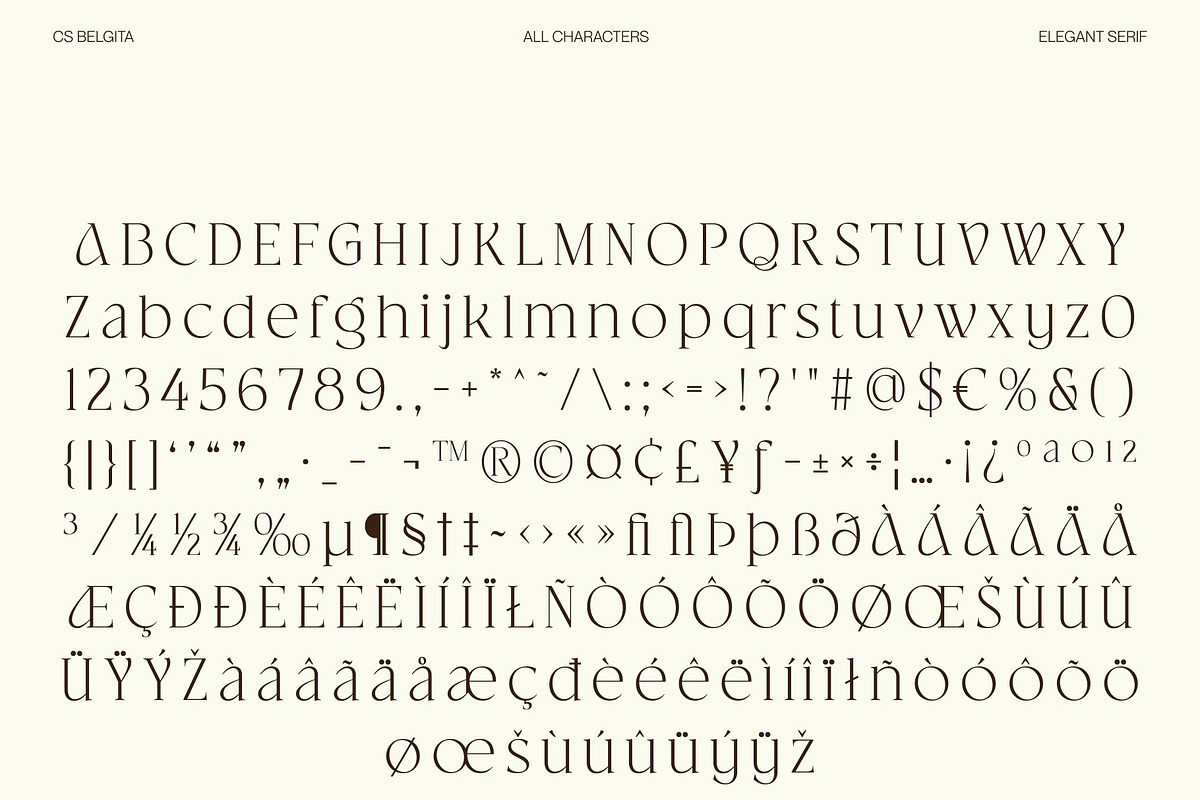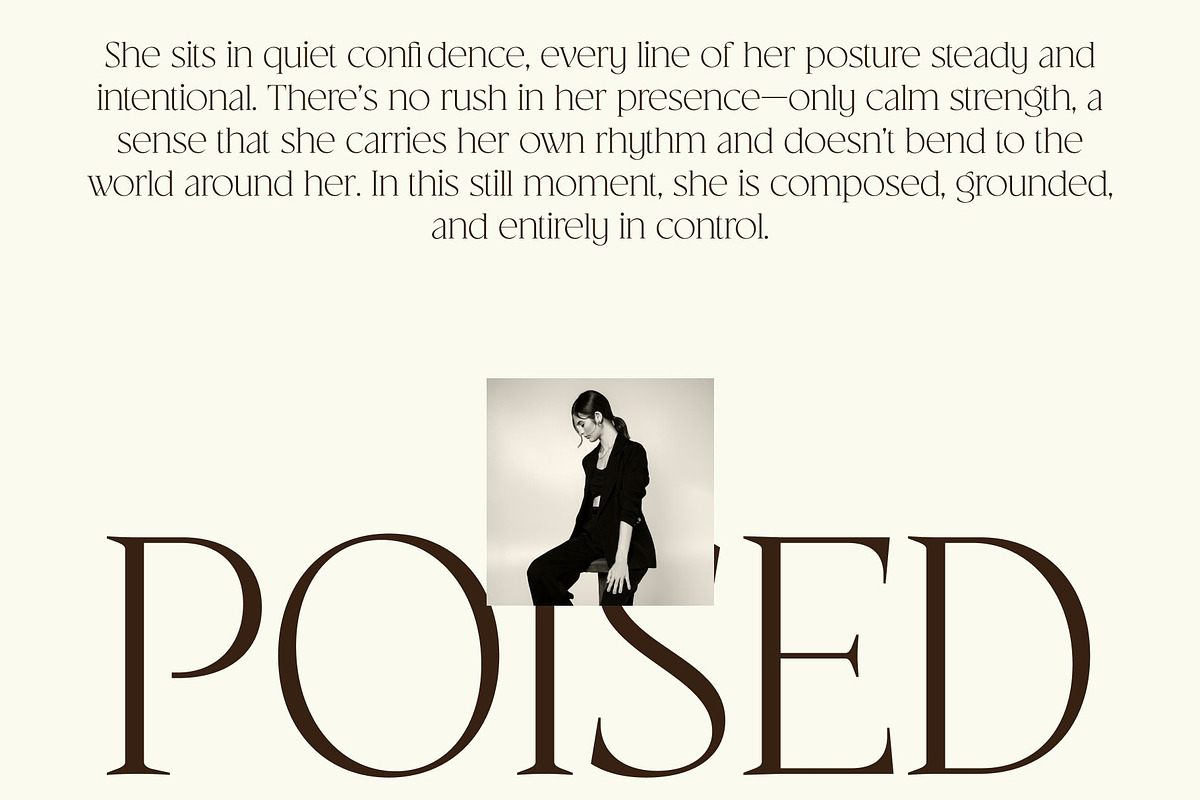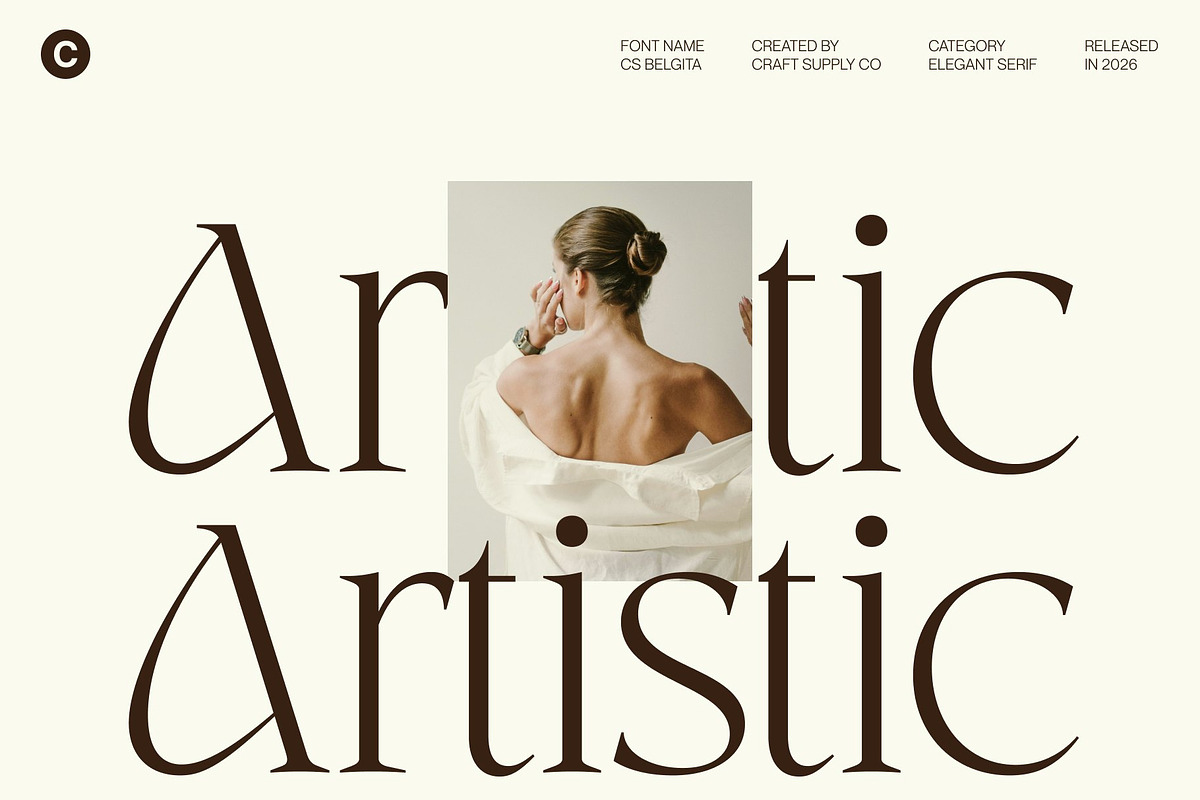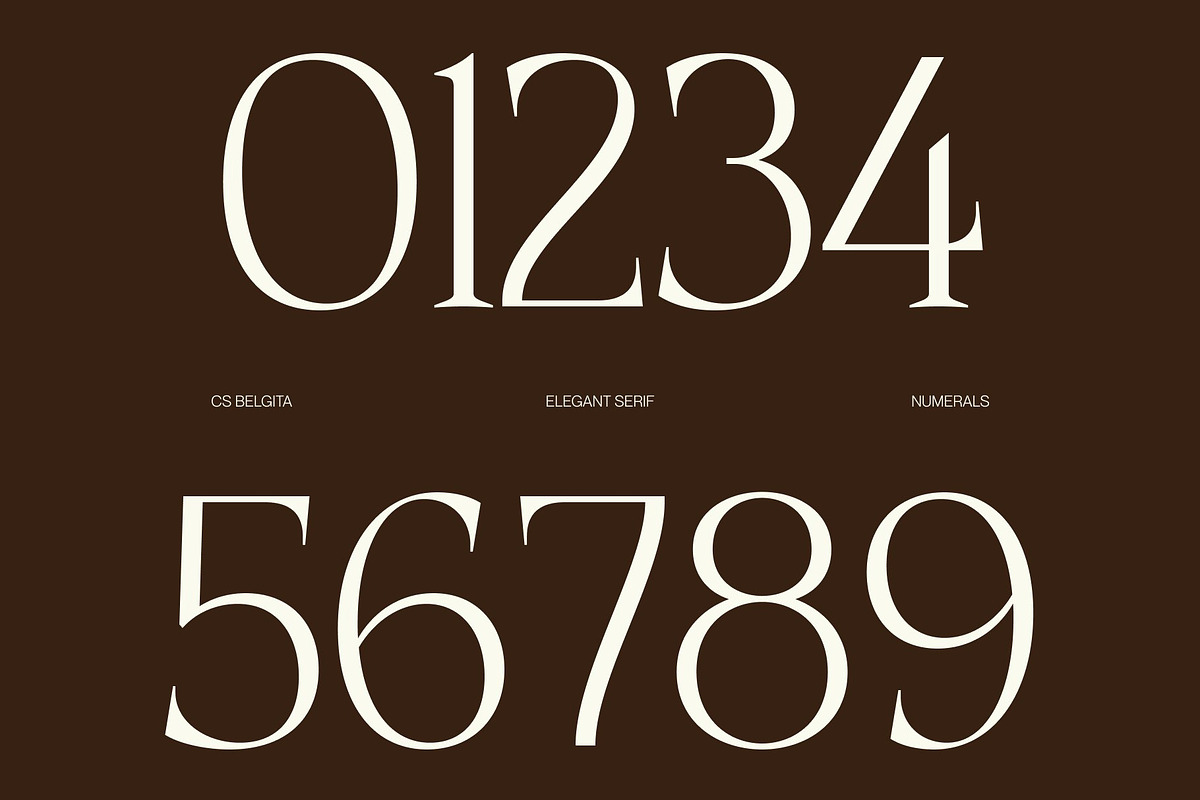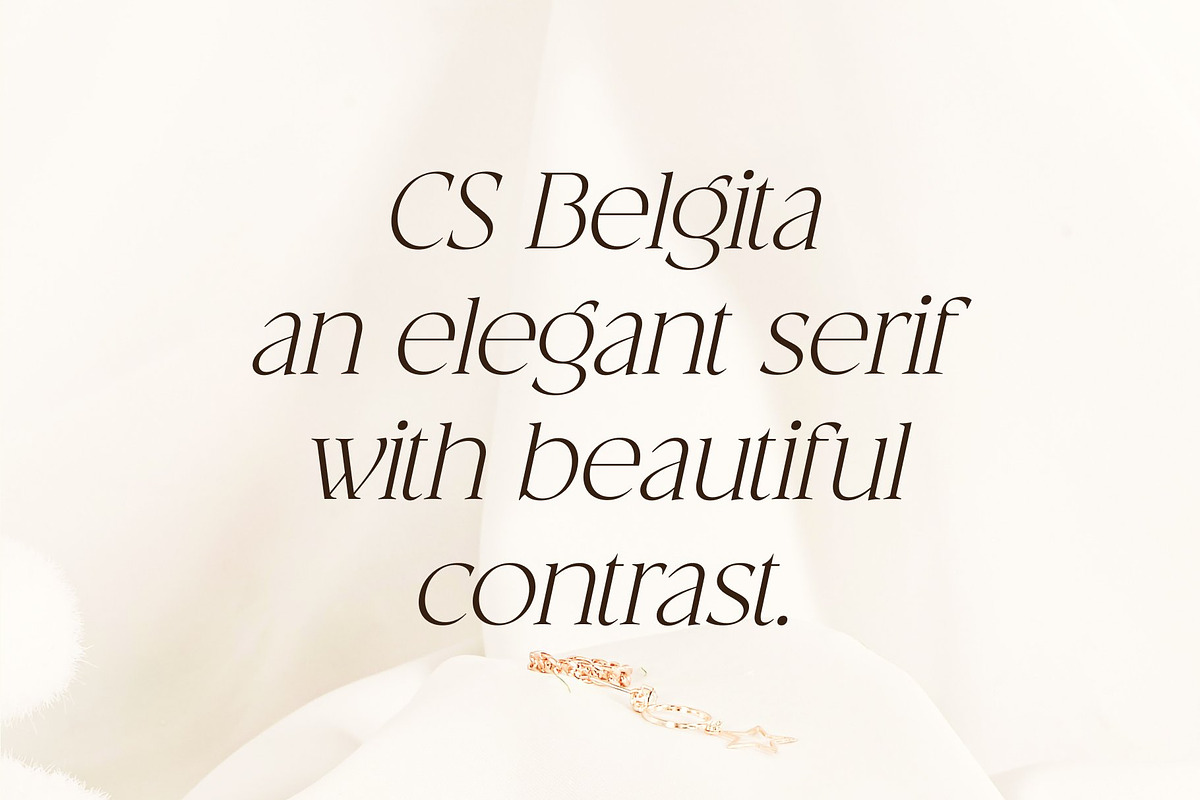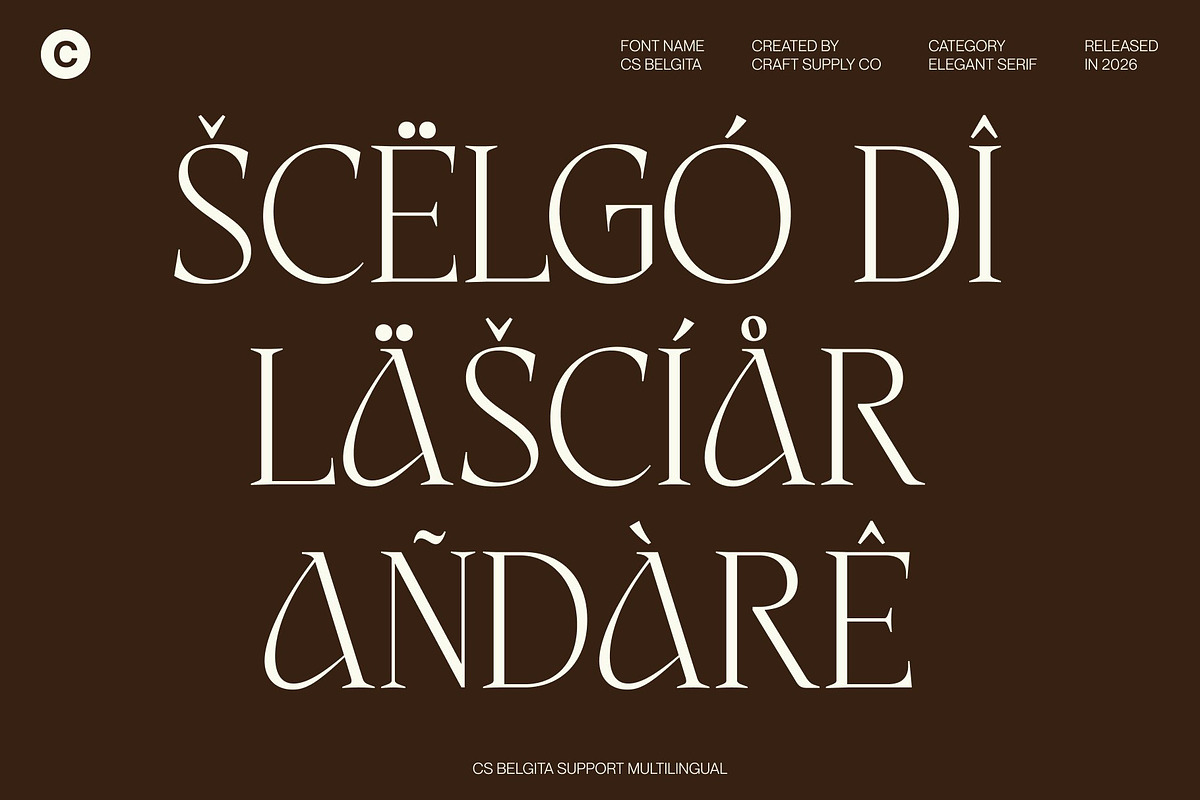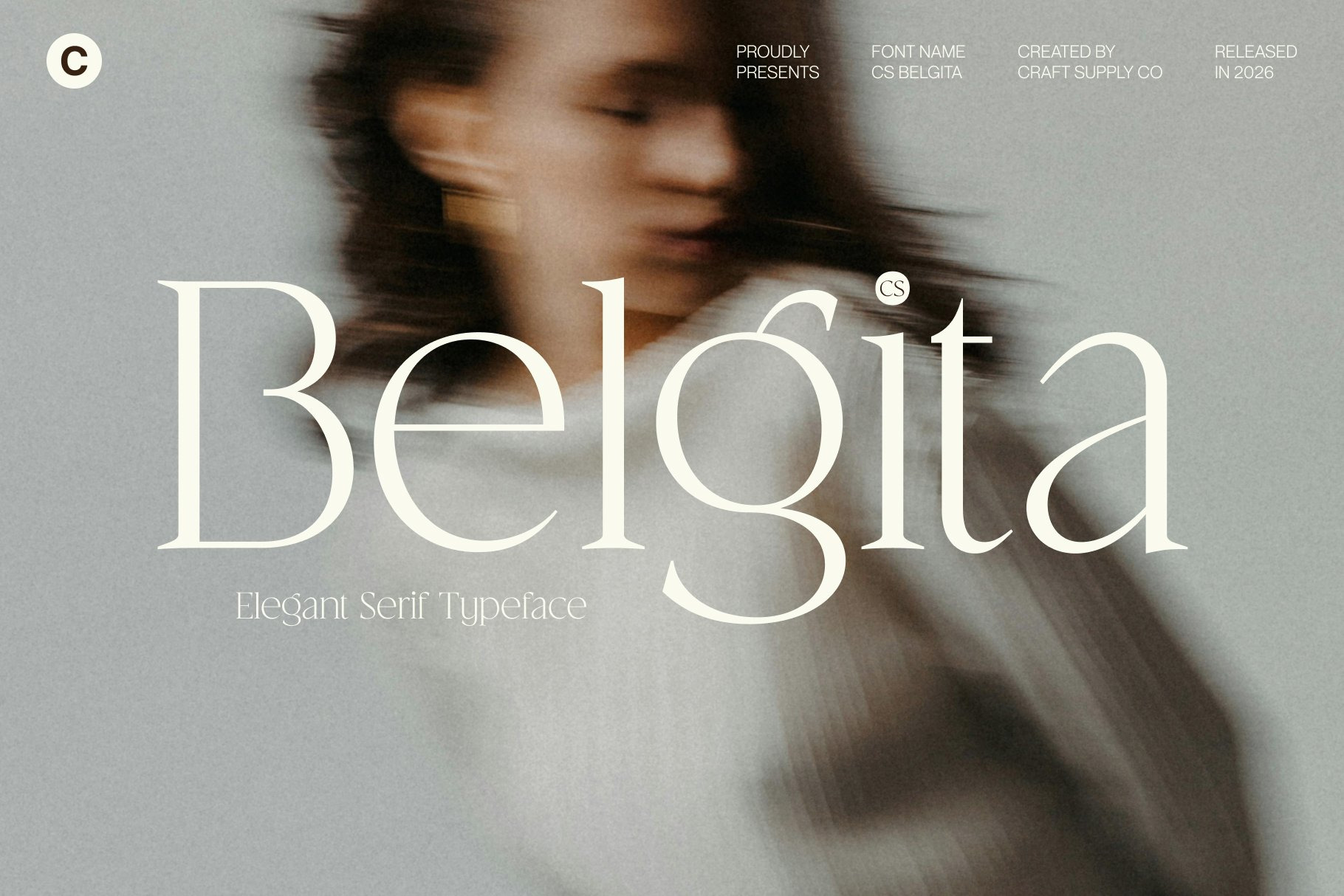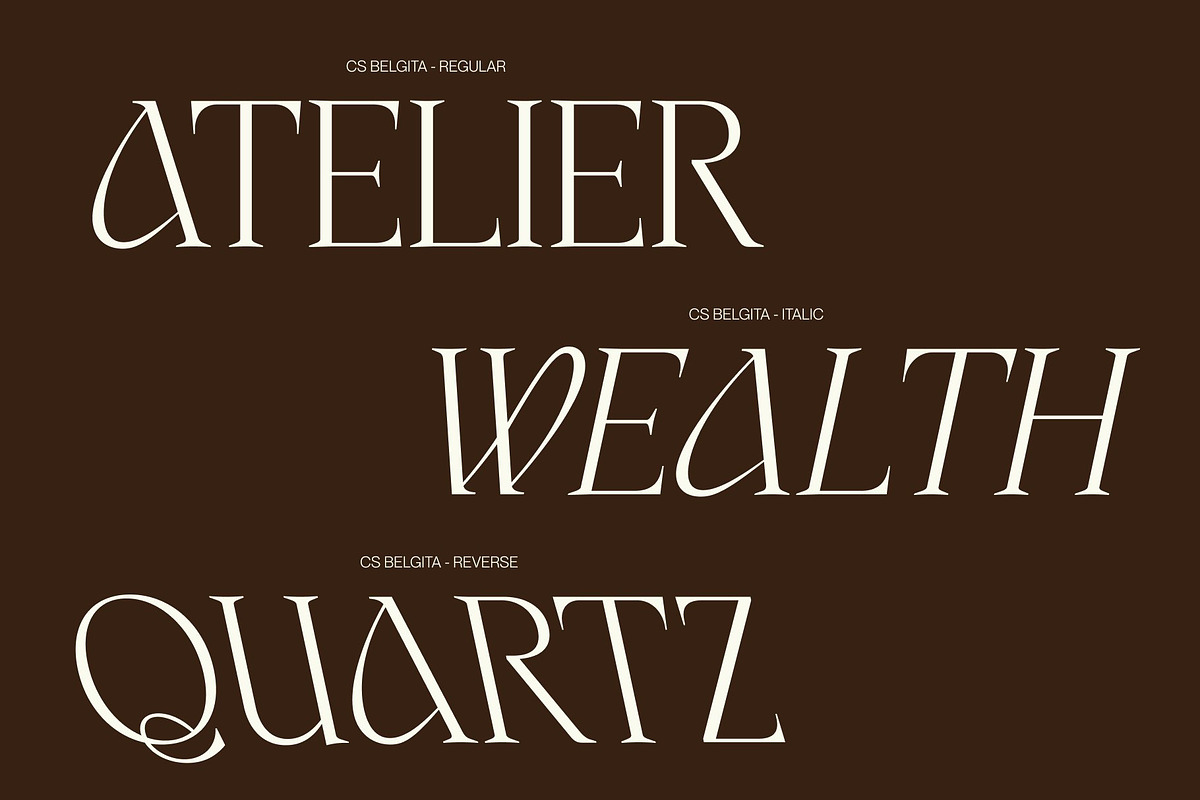
CS Belgita – Elegant Serif Font
CS Belgita – Elegant Serif with Timeless Modern Refinement
Elegant Serif with Clean, Slender Lines This is an elegant serif font designed with clean, slender letterforms that communicate refinement and confidence. Its precise construction and balanced proportions create a sophisticated visual tone that feels modern yet enduring. Every character is shaped to deliver clarity and grace, making the font highly legible while maintaining an elevated aesthetic.
Modern Sophistication with Timeless Appeal The beauty of this font lies in its timeless design language. While rooted in classic serif principles, it introduces a modern sensibility through slim strokes and restrained detailing. This thoughtful balance allows the font to feel fresh and relevant without following short-lived trends. The result is a typeface that can adapt seamlessly across contemporary and classic design contexts.
Refined Structure for Elegant Layouts This font’s slender lines and clean rhythm create an elegant flow across text, making it ideal for structured layouts and refined compositions. Its subtle contrast and polished forms add a sense of luxury without appearing heavy or ornamental. This makes the font especially effective for high-end visuals that require understated sophistication.
Perfect for Fashion, Editorial, and Branding Designed for fashion branding, posters, and editorial layouts, this font excels in headlines, titles, and premium typography. It enhances fashion campaigns, magazine spreads, luxury branding, and stylish posters with a poised and professional presence.